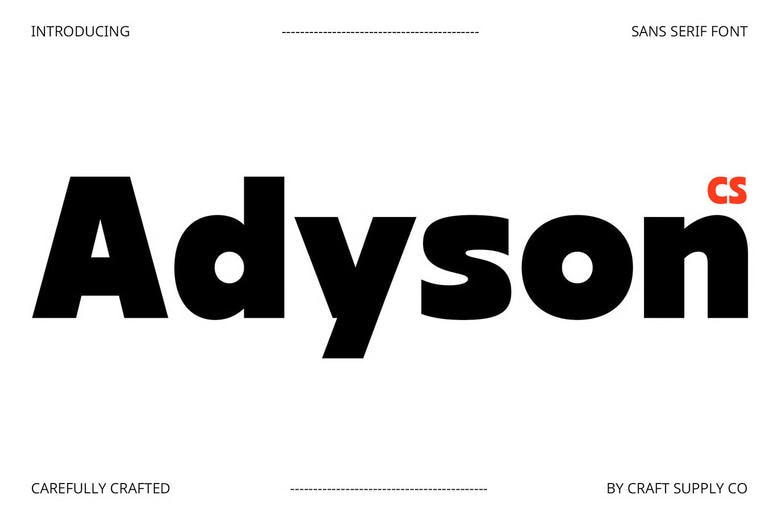
Adyson Font
CS Adyson is a modern bold sans-serif typeface which is crystal clear, powerful and businesslike. This typeface aims at striking a graphic blow, but with a clean, geometric shape and sound construction, no showy style is involved. Its line is between austerity and presence. Created to present Business Clarity and Brand Presence All letters of CS Adyson have been discretely designed and proportional spacing and smooth lines which put readability very high both on paper and digital applications.
This looks good when used in a corporate branding, logo, product packaging, pitch decks, and any professional environment that demands consistency and its visual appeal. CS Adyson has a reliable and futuristic tone, and this is what makes it one of the most sought solutions by enterprises and designers since it brings an appeal to the contemporary but timeless appearance. This font works well as a tech brand, product launch or overall brand identity and gives the effect of stability, leadership and sophistication.